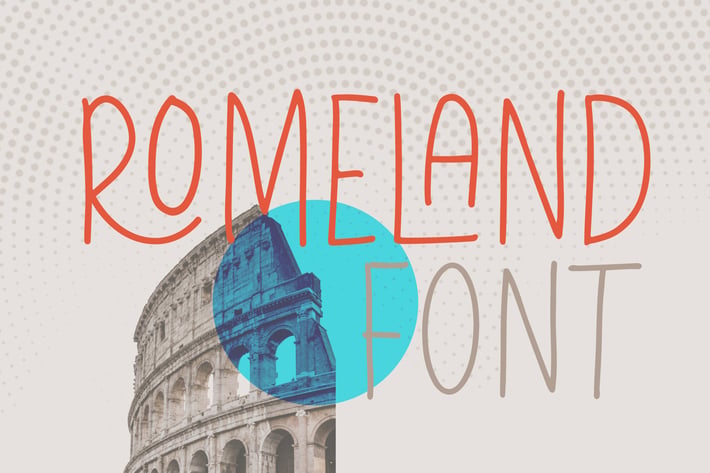
Romeland Font
Introducing Romeland Font, handwriting font with all caps style. You can combine with unique ligatures , so it looks like natural handwriting.
And this font perfect for poster, branding, logo, magazine, apparel, photography, title, social media post, ad banner, book cover, product packaging, handwritten quotes, and advertising. You can create more easily with many ligatures and make it as if you wrote it yourself.